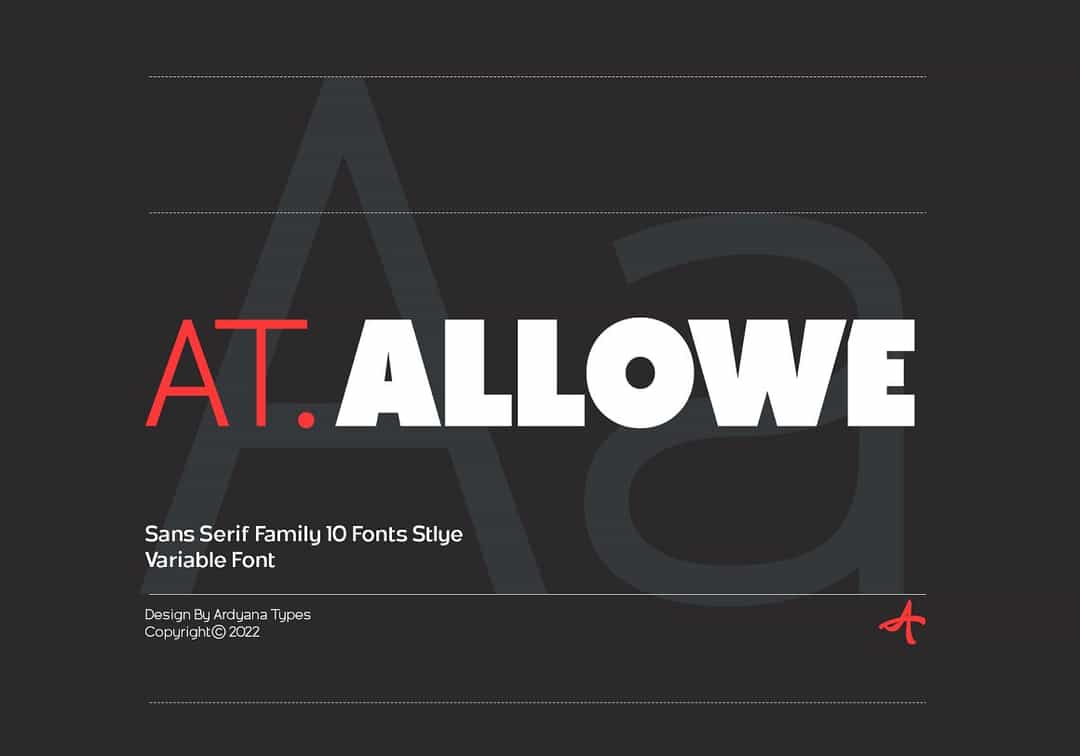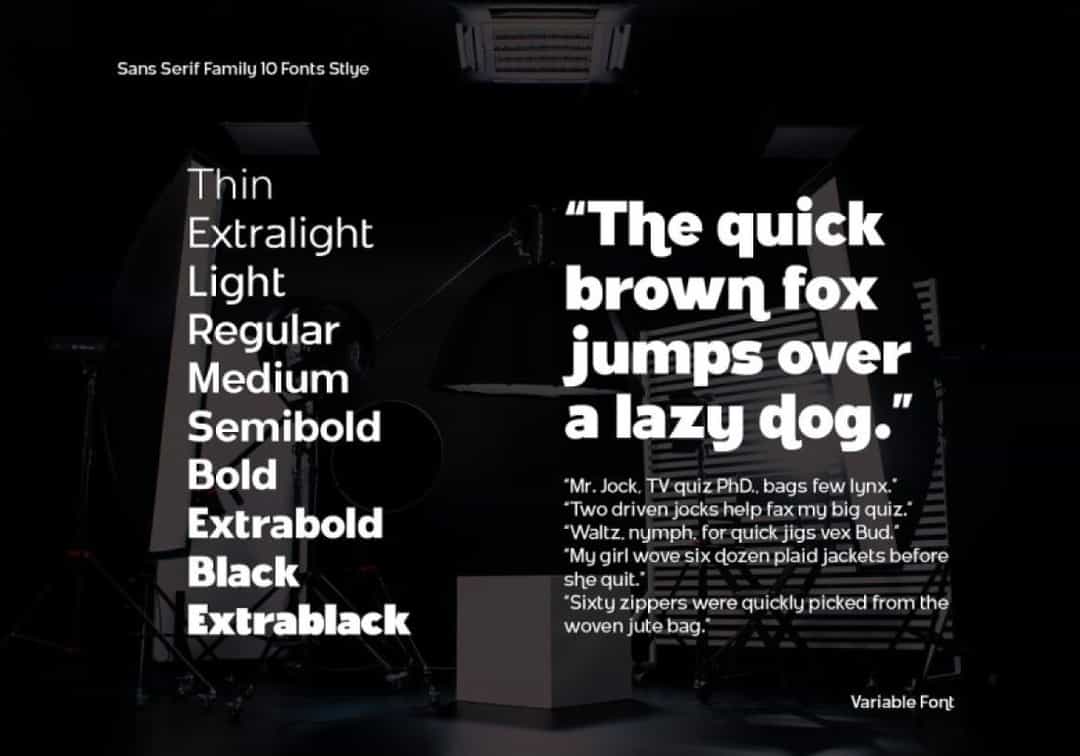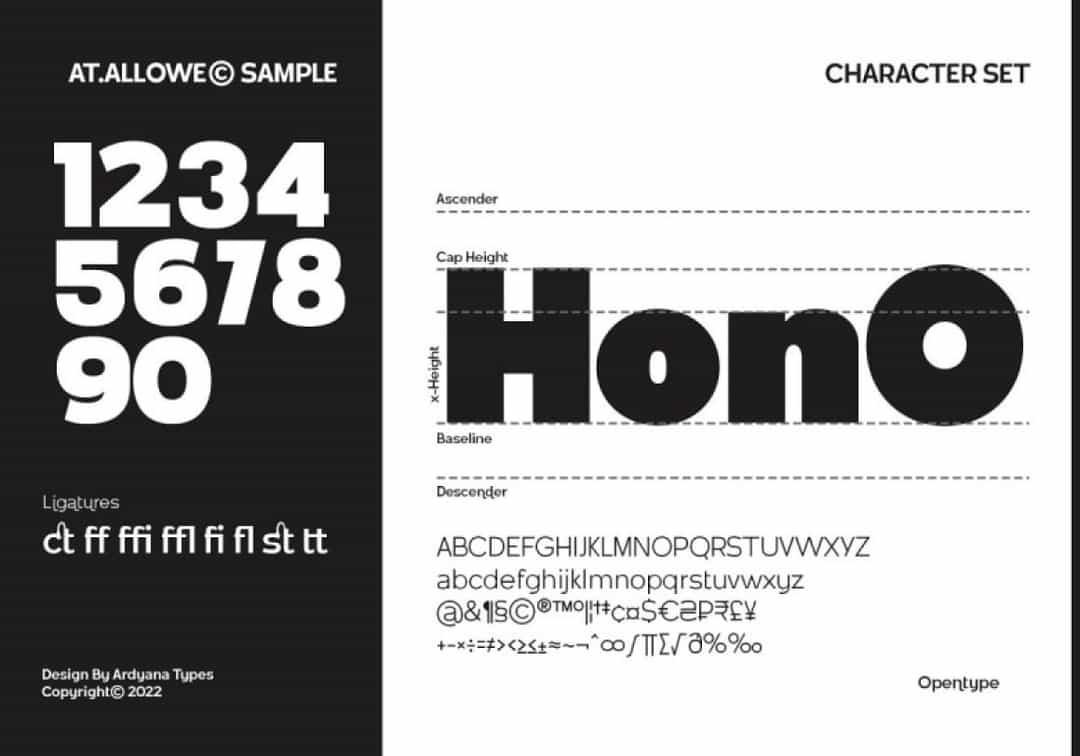
AT Allowe Font features both an abstract sans serif style as well as an eye-catching Sans serif-style tagline, making this font available in eight thickness levels ranging from black to thin depending on your needs. In addition, AT Allowe offers professional design features to help create an eye-catching brand identity for projects or companies for commercial purposes.